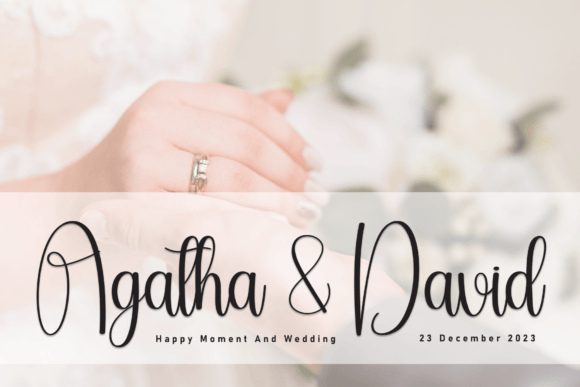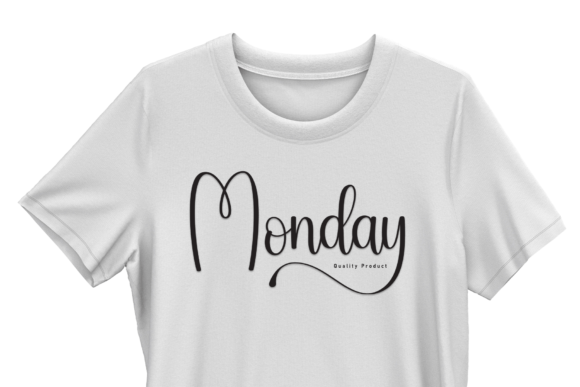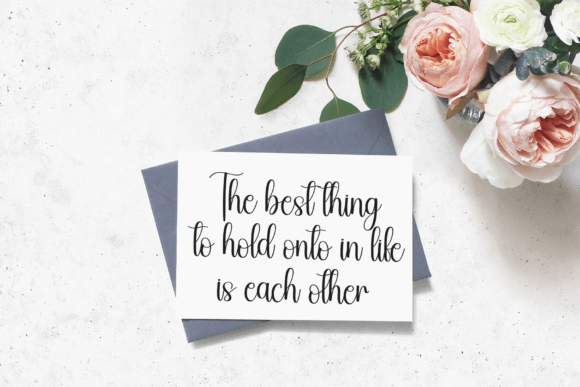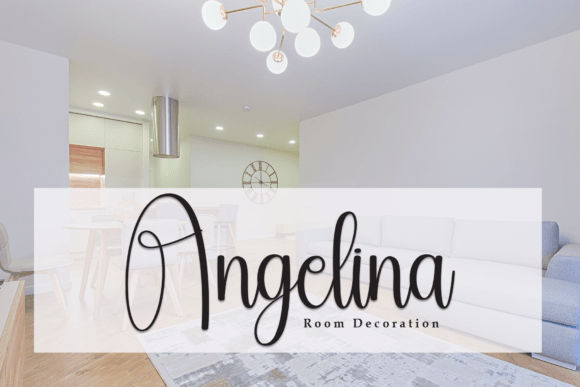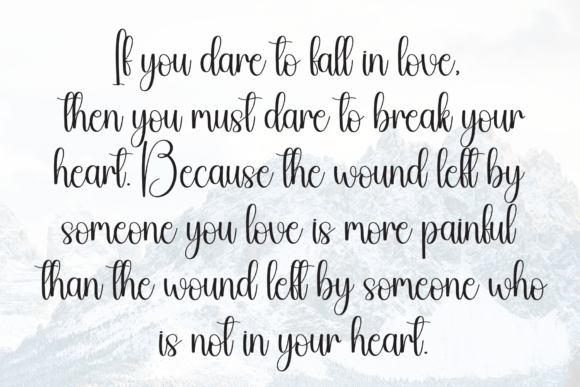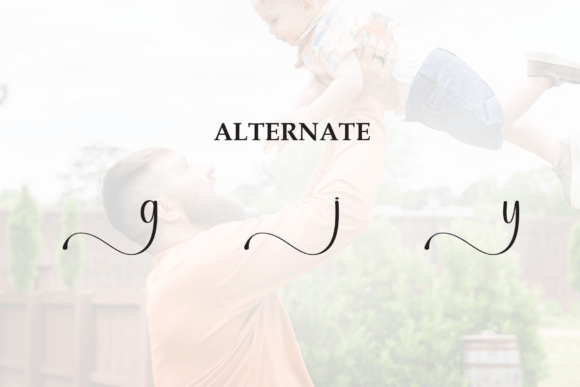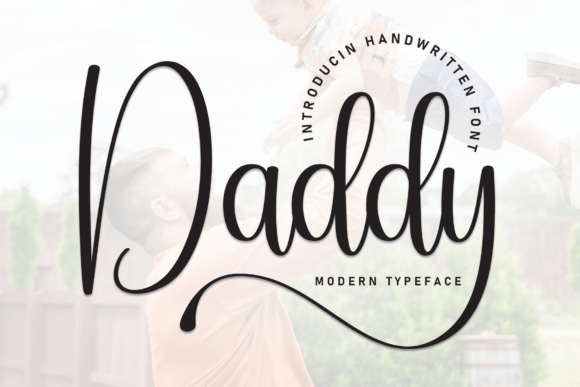
Daddy Font: The Sweet and Friendly Handwritten Font for Your Design Needs
Are you a designer or crafter looking for a font that can add a personal touch to your projects? Look no further than Daddy Font, a sweet and friendly handwritten font that’s perfect for a wide range of designs. With its natural and unique style, Daddy Font is incredibly versatile and can be used for everything from greeting cards and invitations to branding and advertising materials.
The Characteristics of Daddy Font
Daddy Font is a handwritten font that’s designed to look natural and effortless. Its unique style is characterized by:
- Natural flow: Daddy Font has a natural flow that’s reminiscent of handwriting. The letters are connected in a way that looks like they were written with a pen or pencil.
- Unique style: The font has a distinctive style that’s both sweet and friendly. The letters are rounded and soft, making it perfect for designs that need a personal touch.
- High legibility: Despite its handwritten nature, Daddy Font is highly legible, even at small sizes. This makes it perfect for body text and other applications where readability is important.
The Benefits of Using Daddy Font
So why should you choose Daddy Font for your design projects? Here are just a few benefits:
- Versatility: Daddy Font is incredibly versatile and can be used for a wide range of designs, from formal to informal.
- Emotional connection: The font’s natural and friendly style helps to create an emotional connection with your audience. This can be especially important for brands that want to build a personal relationship with their customers.
How to Use Daddy Font in Your Designs
So how can you use Daddy Font in your designs? Here are a few ideas:
- Greeting cards and invitations: Daddy Font is perfect for greeting cards and invitations. Its friendly style makes it ideal for special occasions like birthdays, weddings, and holidays.
- Branding and advertising: The font’s unique style makes it perfect for branding and advertising materials. Use it to create eye-catching headlines and body text that’s both readable and engaging.
- Crafting and DIY projects: Daddy Font is also great for crafting and DIY projects. Use it to add a personal touch to your handmade items, such as journals, scrapbook pages, and other paper crafts.
Tips for Getting the Most Out of Daddy Font
Here are a few tips for getting the most out of Daddy Font:
- Experiment with different sizes: Daddy Font looks great at a wide range of sizes, from small body text to large headlines. Experiment with different sizes to find the one that works best for your design.
- Pair it with other fonts: Daddy Font can be paired with other fonts to create a unique and interesting design. Try pairing it with a sans-serif font for a modern look or a serif font for a more traditional look.
- Use it consistently: To get the most out of Daddy Font, use it consistently throughout your design. This will help to create a cohesive look and make your design more recognizable.
In conclusion, Daddy Font is a sweet and friendly handwritten font that’s perfect for designers and crafters. Its natural and unique style makes it incredibly versatile, and its high legibility makes it perfect for a wide range of designs. Whether you’re creating greeting cards, branding materials, or crafting projects, Daddy Font is sure to add a personal touch that will make your designs stand out.